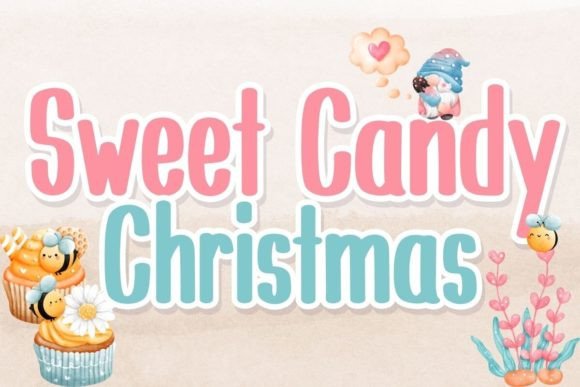
Enter the enchanting realm of Sweet Candy Christmas, a font that weaves together elegance and cheer like a winter's dream. Inspired by the festive spirit of Christmas, this font captures the whimsical charm of handwritten letters, intertwining them with the refinement of display fonts.
With Sweet Candy Christmas, your creative projects will be transformed into heartwarming masterpieces. Imagine holiday cards that sparkle with joy, party invitations that exude excitement, and creative endeavors that overflow with festive charm. Let your imagination dance to the rhythm of this font's captivating strokes.
Sweet Candy Christmas is meticulously crafted to provide a captivating visual experience. Its playful curves and delicate flourishes evoke a sense of warmth and nostalgia, reminiscent of sugar-dusted cookies and twinkling Christmas lights. Whether you're a seasoned designer or a creative enthusiast, this font will ignite your imagination and unlock a world of festive possibilities.
Its versatility extends beyond the realm of holiday-themed projects. Sweet Candy Christmas adds a touch of whimsy to logos, branding materials, and social media posts, infusing them with a distinctive personality. Its legibility and readability make it suitable for a wide range of applications, ensuring that your message shines through with clarity and charm.